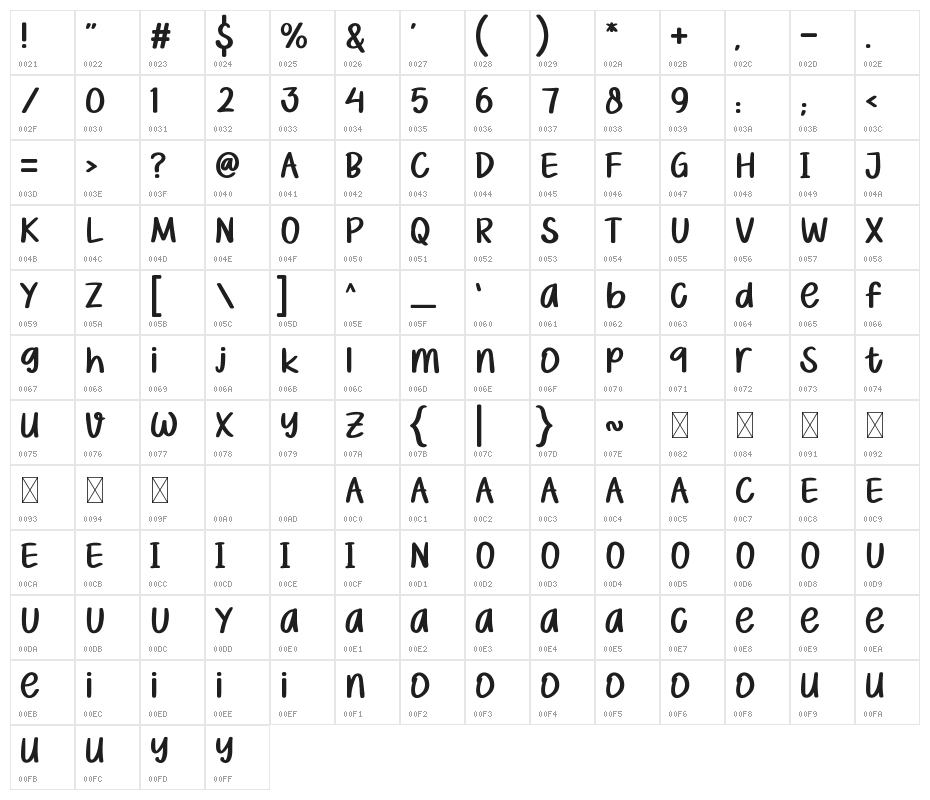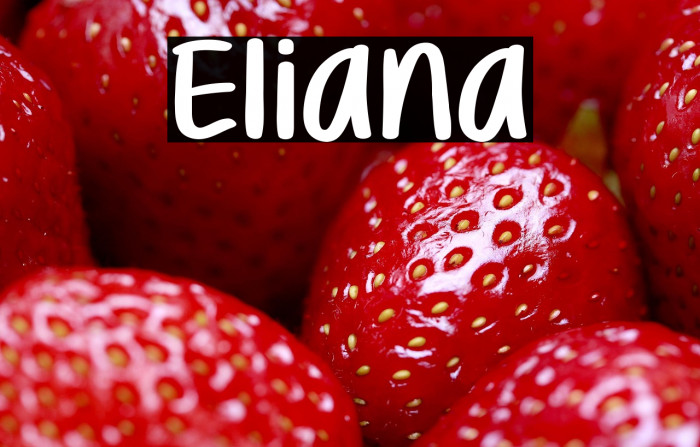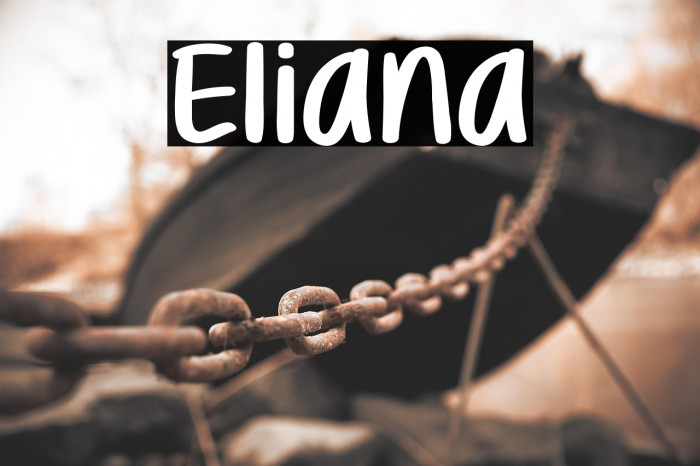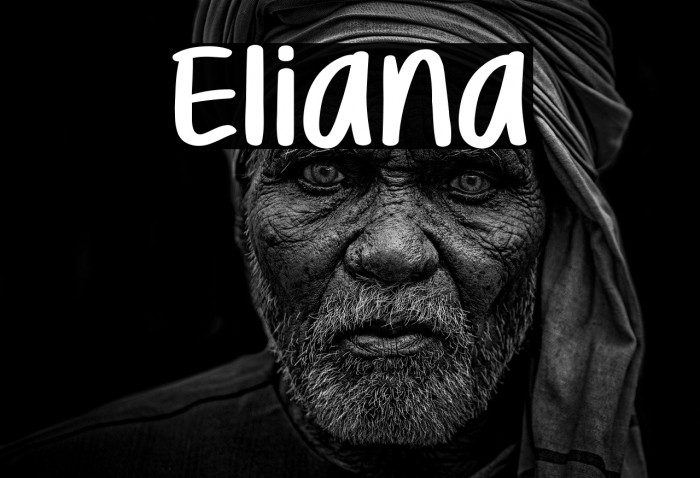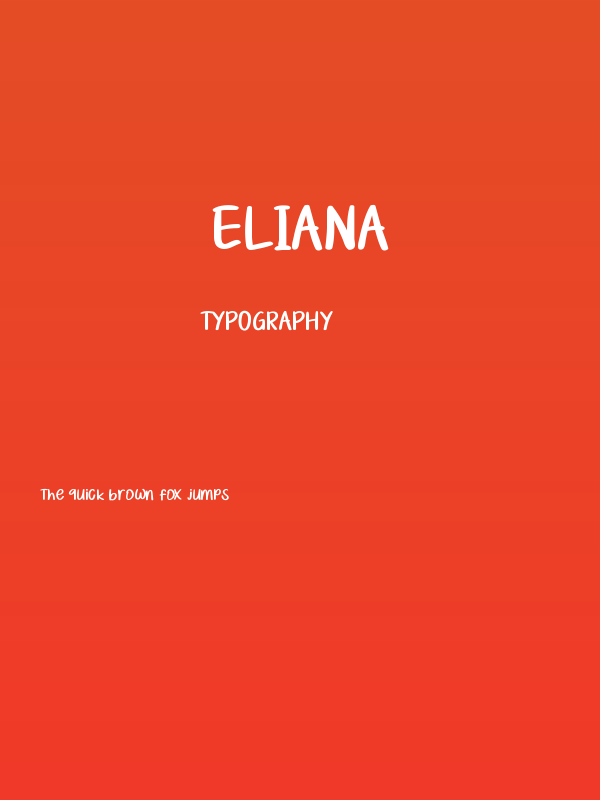
Eliana Font
Eliana Description
A playful, rounded handwritten typeface with consistent stroke width, casual curves, and a friendly appearance. The characters are slightly irregular, mimicking natural handwriting, with open counters and smooth terminals.
| Overall Style | Playful, Casual, Friendly |
| Use Case | Headlines, Logos, Informal body text, Invitations |
| Proposed Projects | ChildrenΓ’β¬β’s books, greeting cards, posters, branding for playful or informal products, social media graphics. |